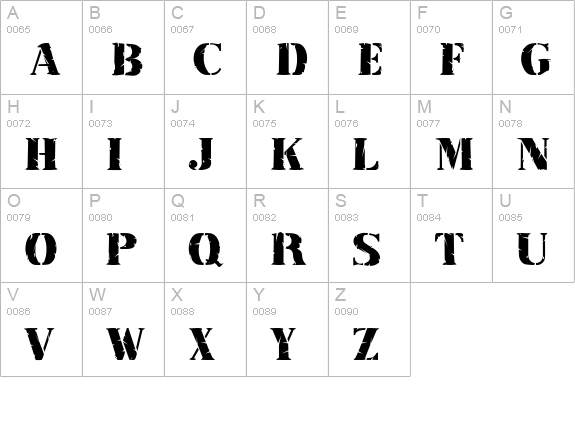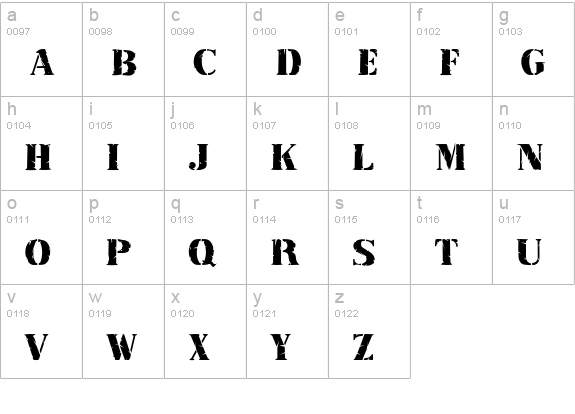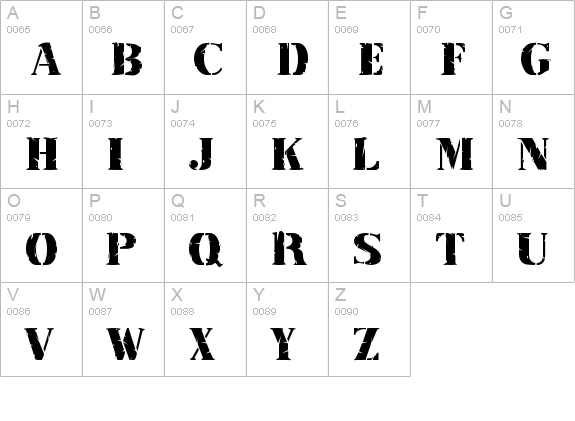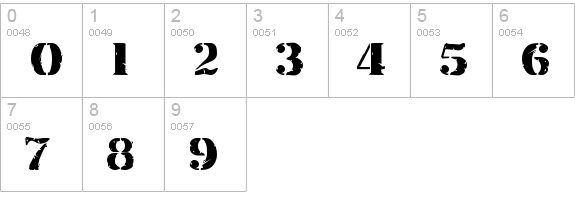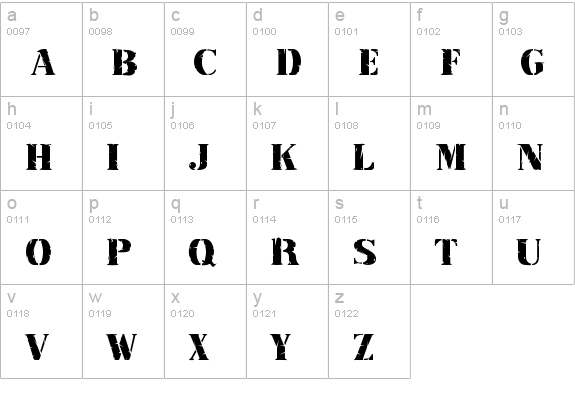
RubberStamp Normal Font Details
RubberStamp Normal is the standard, neutral variant in the RubberStamp typeface family \xE2\x80\x94 well suited to general body text, paragraphs, and standard typographic work.
Introducing RubberStamp Normal font, a unique and versatile typeface that captures the essence of traditional rubber stamping with a modern twist. This font features bold and distressed characters that add a touch of authenticity to any design project. Whether you're looking to create eye-catching posters, vintage-inspired logos, or handmade cards, RubberStamp Normal font is sure to make a statement. The best part? This font is completely free to download at FontsMarket.com, making it easily accessible for all your creative needs. Don't miss out on the opportunity to add a touch of nostalgia and character to your designs with RubberStamp Normal font. Download it today and let your creativity shine!